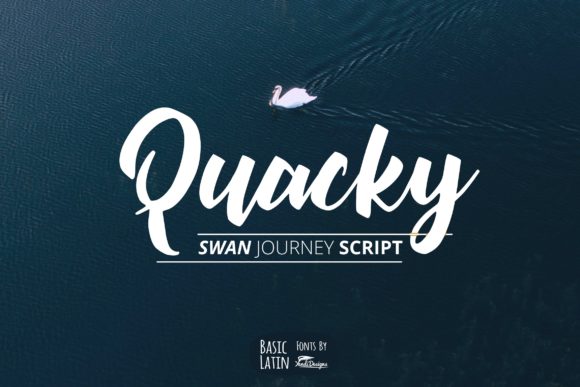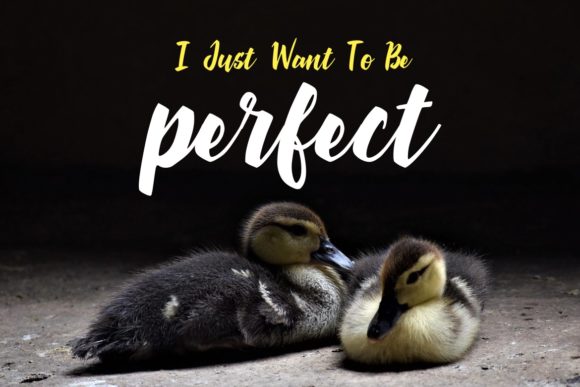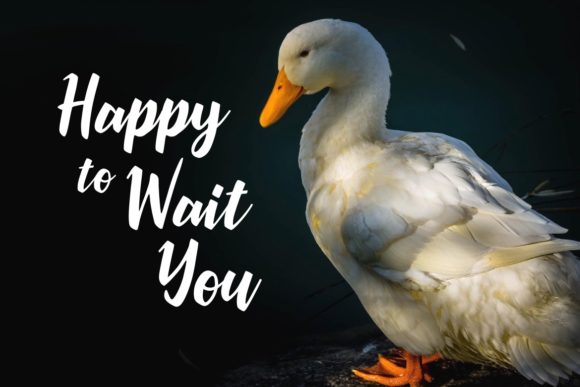
Quacky Font
About Quacky Font
Quacky is an adorable handwritten font, perfectly made for a variety of projects such as logos, posters, t-shirt & mug designs and more.
Your next designs will stand out thanks to this quirky and lovable font.